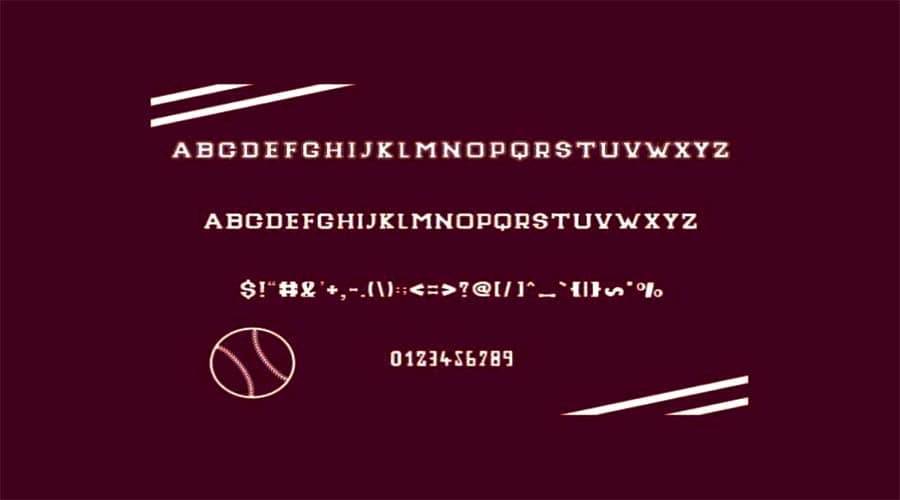
Bold Ball Font
Bold Ball is a university font with a sporty feel. It is designed and shared by Lickable Pixels on October 10, 2019.
Bold Ball Font is college-friendly font. The upper characters in this font have a white outline, whereas the lowercase letters are regular. The font is suitable for use with window, Mac and Android. This font is available in
TrueType and OpenType. The TrueType format works with multilingual support. This beautiful font is categorized under Display font. Okemo Modern Bold Serif Font, Mullingar Display Typeface, Revans Serif Font Family and Mullingar Display Typeface are a few identical fonts.
It’s a display font with a strong appearance. It’s an excellent typeface for crafting posters or utilizing various sports-related items like jersey numbers. Bold Ball Font is also a great choice for making posters for other occasions. Because of its svelte vibe, this font is frequently used in universities and colleges.